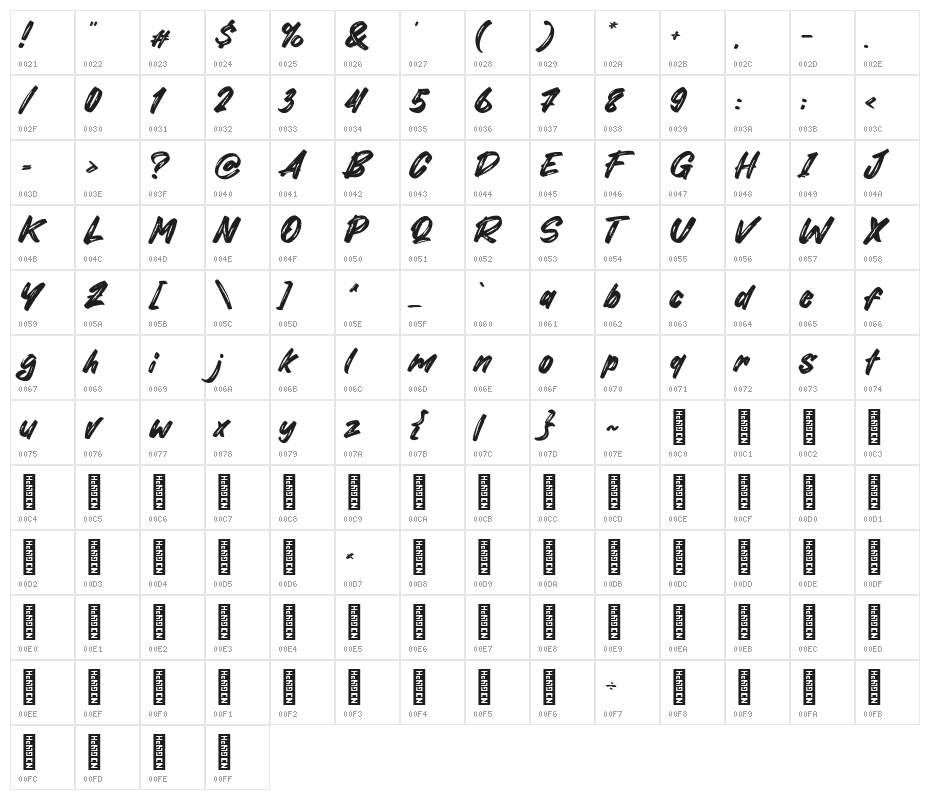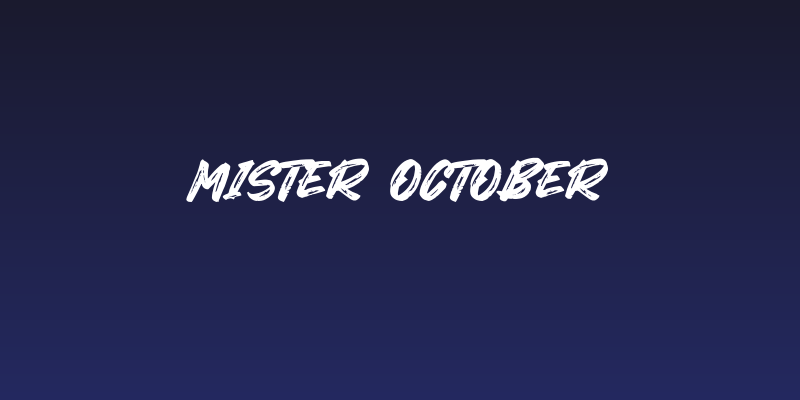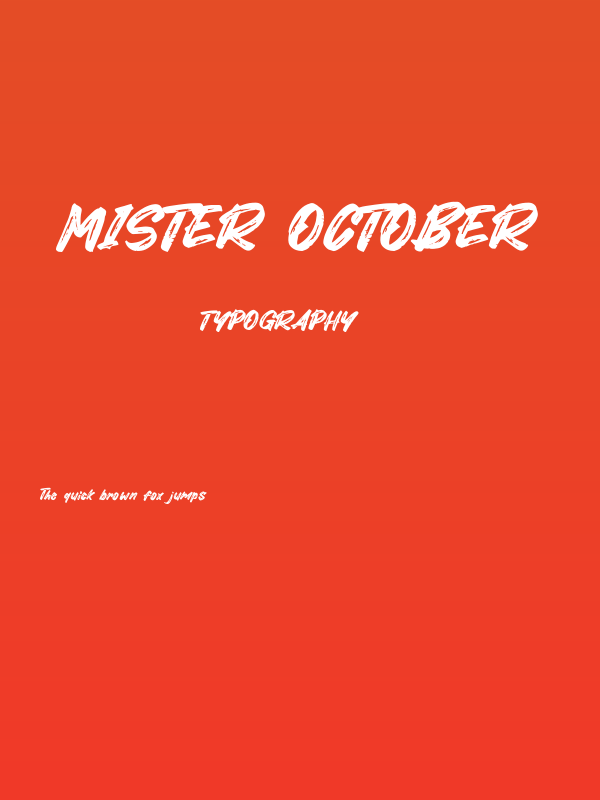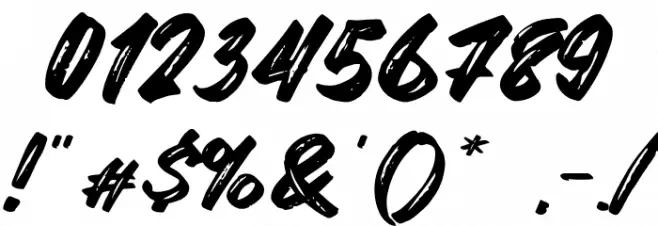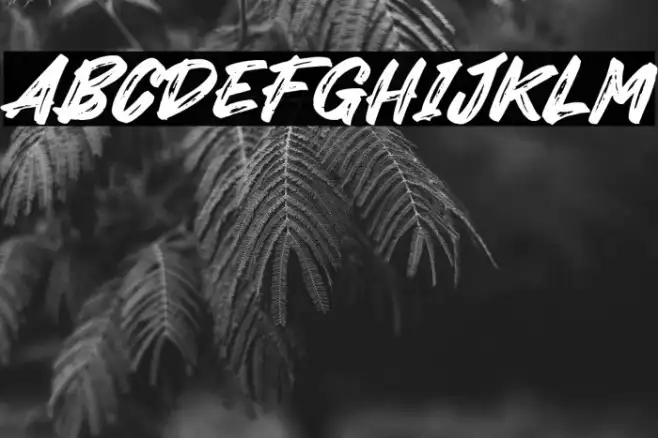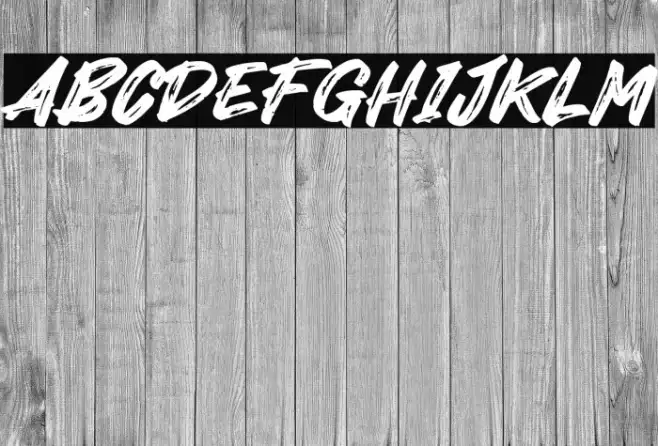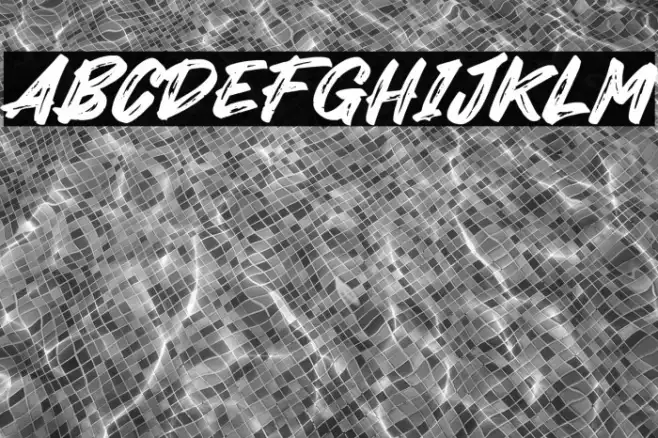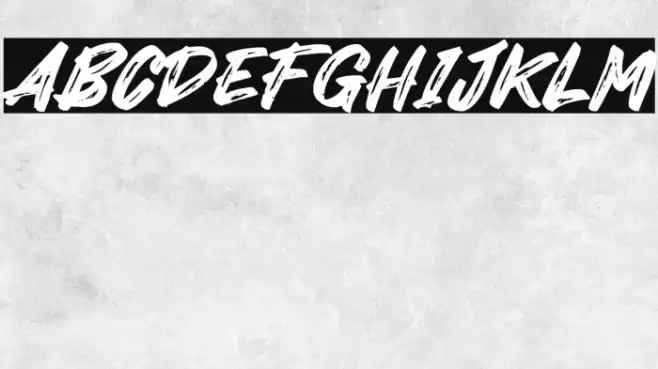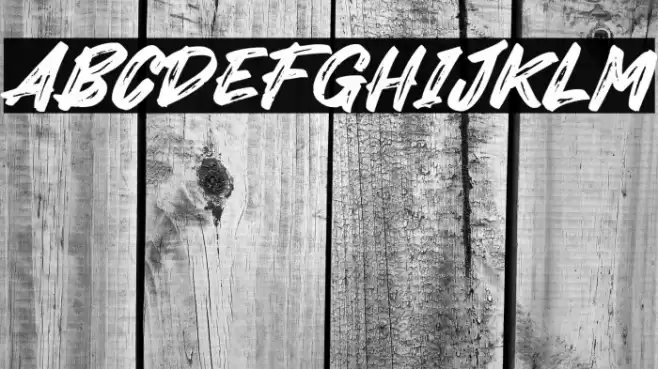
Mister October Font
Mister October Description
This font exudes a bold and energetic style, characterized by its brush-like strokes and dynamic movement. The letters are crafted with a sense of urgency and flair, giving them a hand-painted appearance. The uppercase and lowercase letters maintain a consistent style, with thick, uneven strokes that suggest a sense of spontaneity. Numbers and special characters follow the same expressive design, making the font suitable for projects that require a strong visual impact. The overall look is both artistic and modern, perfect for capturing attention.
| Proposed Projects | Ideal for posters, branding, album covers, and any project needing a bold, artistic touch. |